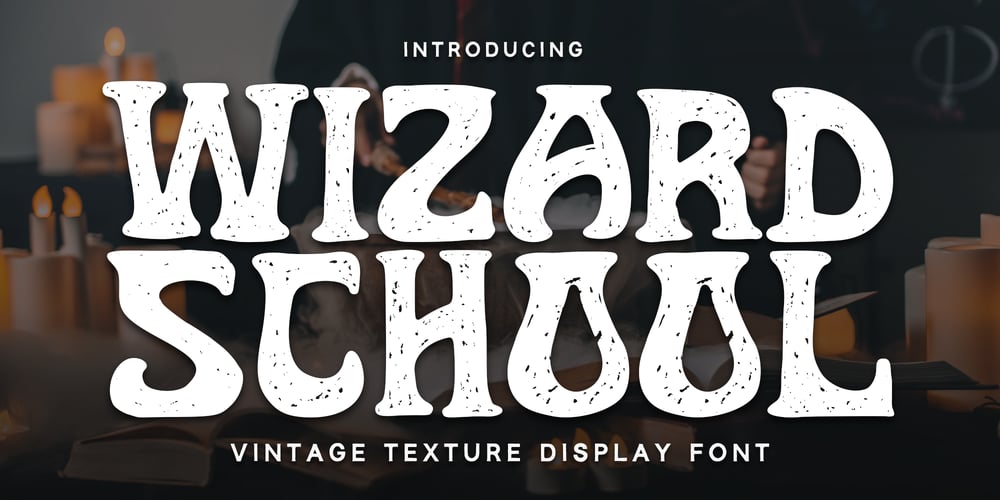
Wizard School Font Family was designed by Nadia Salsabila and published by Alpaprana. Wizard School contains 1 styles and family package options. Wizard School is a stunning display font with cute and playful feels. It will be perfectly used for Branding, Logo Design, Lettering, Logotype, Clothing, Poster, magazine, packaging, posters, shopping bags, t-shirts, book covers, photography, special events and other design project.